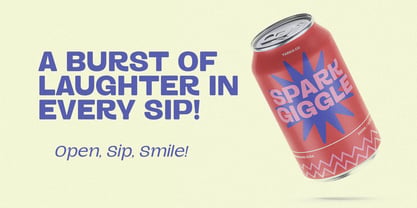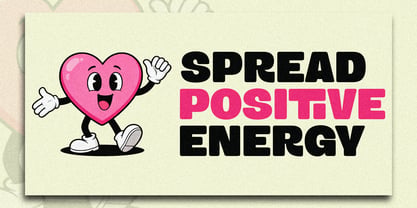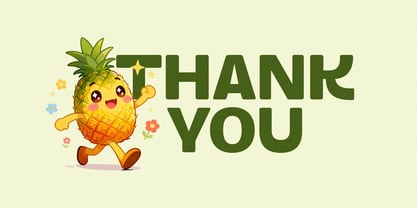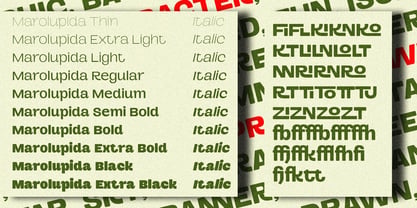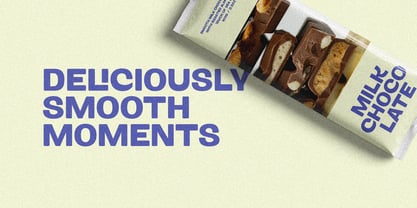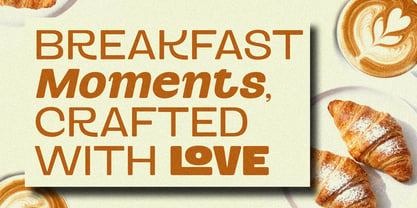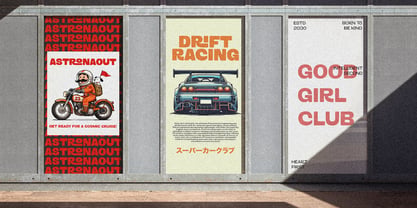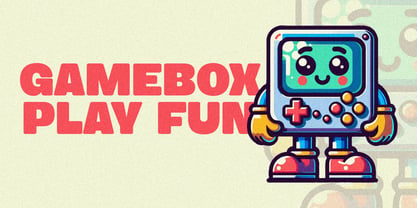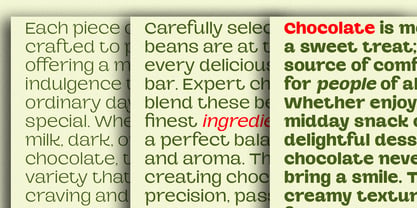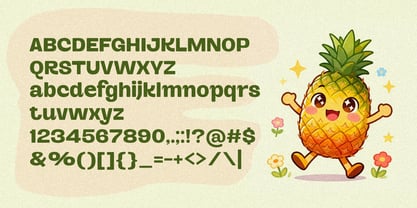
Marolupida
von MysticalType
Die Schriftfamilie Marolupida wurde von Candi Erwanto entworfen und von MysticalType veröffentlicht. Marolupida enthält 20 Stile und Familienpaketoptionen. Mehr über diese Familie
Marolupida Font Product Description Marolupida is a bold, rounded sans-serif font designed to convey a friendly and playful impression, ideal for promotional designs and fun branding. Developed by MysticalType studio and designer Candi Erwanto, this font offers 20 styles (normal and italic) with a total of 264 glyphs, supporting ligatures and multilingual use for global flexibility . Metric kerning ensures precise letter spacing, keeping text clear even at large sizes or from a distance . Key Characteristics Type and Shape: Sans-serif heavy/black type with rounded corners, delivering a plump, full appearance that's highly legible. Weight and Size: Extra bold with consistent thickness, perfect for large headlines in posters or social media. Spacing: Automatic metric kerning, tight but clear letter spacing, wide leading for optimal line separation. Additional Features: Artistic ligatures, multilingual support, 264 comprehensive glyphs for various languages . Impression and Usage This font evokes positive, warm, and childlike vibes, making it perfect for kids' products, food/beverages, or social content. Its simple, ornament-free design ensures readability from afar, effectively capturing attention in non-formal branding . As a commercial font from MysticalType, Marolupida is ready for sale on platforms like MyFonts, aligning with your design portfolio .
Designer: Candi Erwanto
Foundry: MysticalType